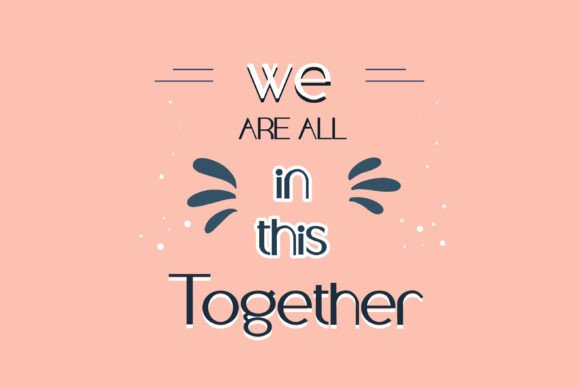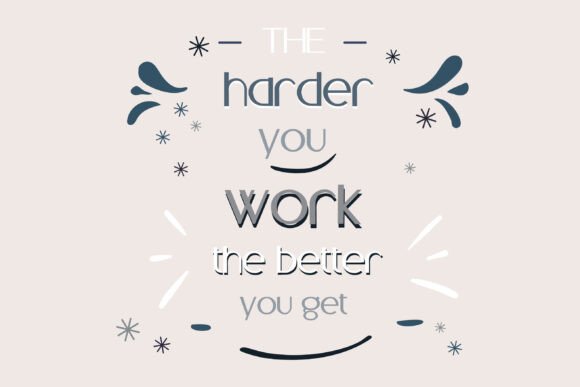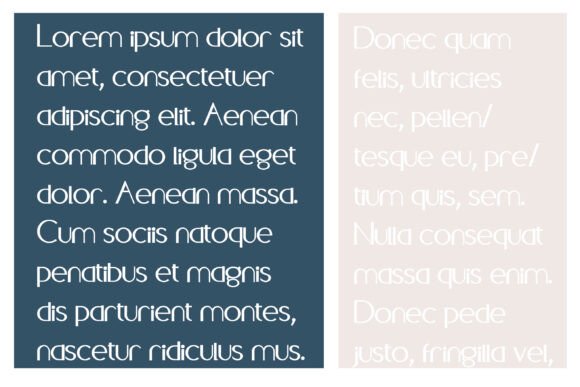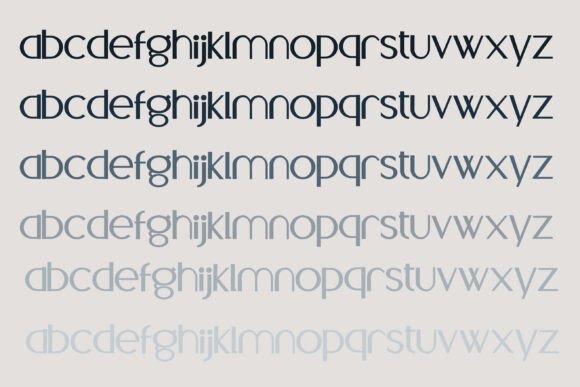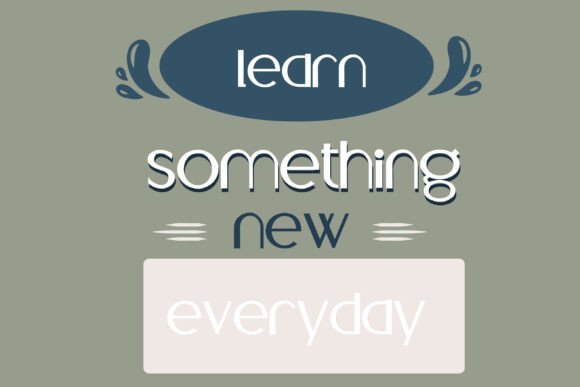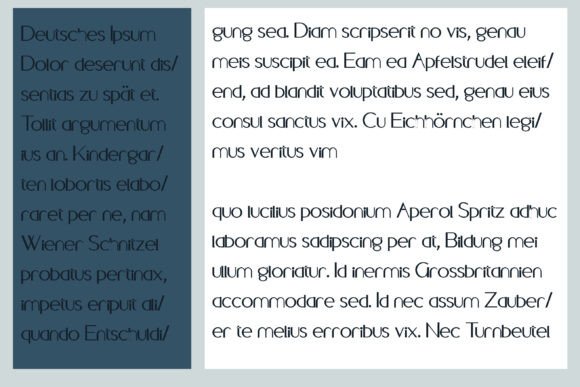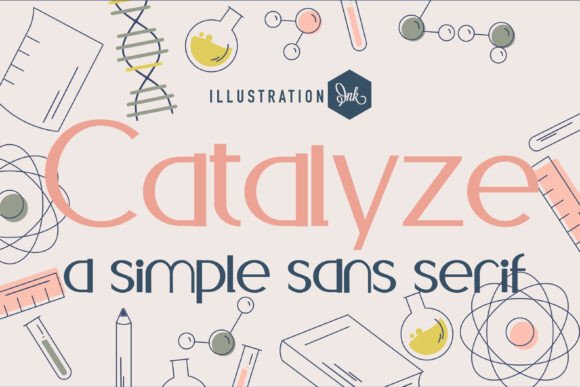
Catalyze Font: A Hand-Crafted Sans Serif for Modern Designs
In the world of typography, fonts play a crucial role in conveying the tone and personality of a design. For designers and crafters looking for a unique and modern touch, the Catalyze Font is an excellent choice. This hand-crafted sans serif font is squatty, a bit modern, and comes with a bold version, making it perfect for a variety of projects.
A hand-crafted font is a typeface that is designed to look like it was written by hand. It is often used for invitations, greeting cards, and other items where a personal touch is desired. Handwritten fonts can be either formal or informal, and they can be used for a variety of purposes, from digital designs to print materials.
Characteristics of Catalyze Font
The Catalyze Font is a sans serif font, which means it doesn’t have the small lines or flourishes at the end of the letters. This gives it a clean and modern look, making it perfect for designs that require a bit of edge. The font is also squatty, meaning the letters are a bit wider and shorter than usual, giving it a unique and playful feel.
Uses of Catalyze Font
The Catalyze Font is a versatile font that can be used for a variety of projects, including:
- Invitations and Greeting Cards: The hand-crafted look of the Catalyze Font makes it perfect for invitations and greeting cards, adding a personal touch to these special occasions.
- Digital Designs: The font’s modern and clean look makes it suitable for digital designs, such as website headers, social media graphics, and more.
- Print Materials: The Catalyze Font can be used for print materials, such as brochures, flyers, and posters, where a unique and eye-catching font is desired.
- Crafting Projects: The font’s playful and handmade look makes it perfect for crafting projects, such as scrapbooking, journaling, and more.
Benefits of Using Catalyze Font
Using the Catalyze Font in your designs offers several benefits, including:
- Unique Look: The hand-crafted look of the Catalyze Font sets it apart from other fonts, giving your designs a unique and distinctive look.
- Versatility: The font’s versatility makes it suitable for a wide range of projects, from digital designs to print materials.
- Easy to Read: The clean and modern look of the Catalyze Font makes it easy to read, even at small sizes.
Tips for Using Catalyze Font
Here are some tips for using the Catalyze Font in your designs:
- Use it Sparingly: While the Catalyze Font is a beautiful font, it can be overwhelming if used excessively. Use it sparingly to add a touch of personality to your designs.
- Pair it with Other Fonts: The Catalyze Font pairs well with other fonts, especially serif fonts. Experiment with different font combinations to find the perfect look for your design.
- Adjust the Size and Color: Adjust the size and color of the Catalyze Font to suit your design. A larger size can make a bold statement, while a smaller size can add a subtle touch.
The Catalyze Font is a unique and versatile hand-crafted sans serif font that is perfect for designers and crafters looking for a modern touch. Its squatty and playful look makes it suitable for a variety of projects, from invitations and greeting cards to digital designs and print materials. With its ease of use and versatility, the Catalyze Font is an excellent addition to any designer’s font collection.